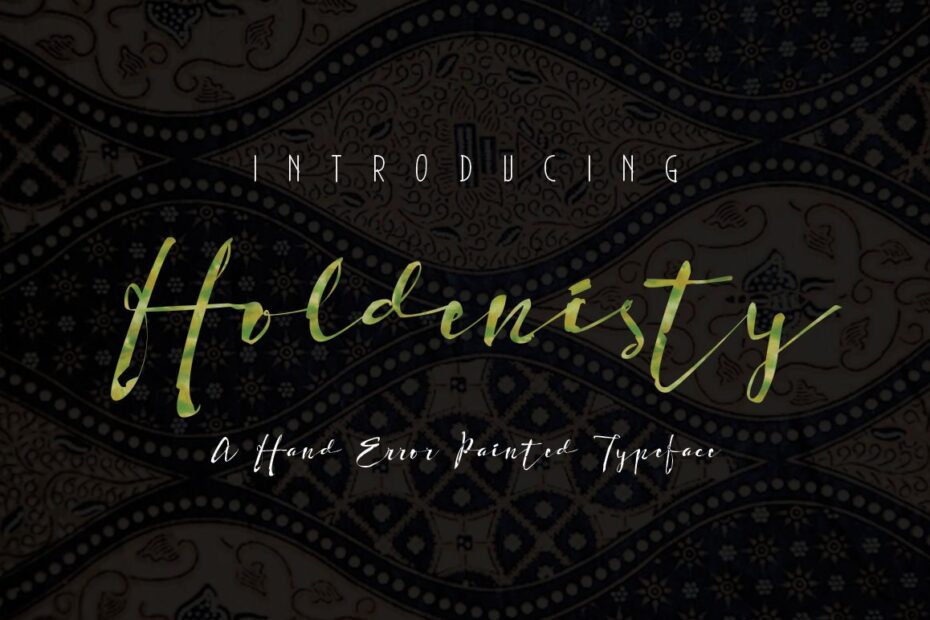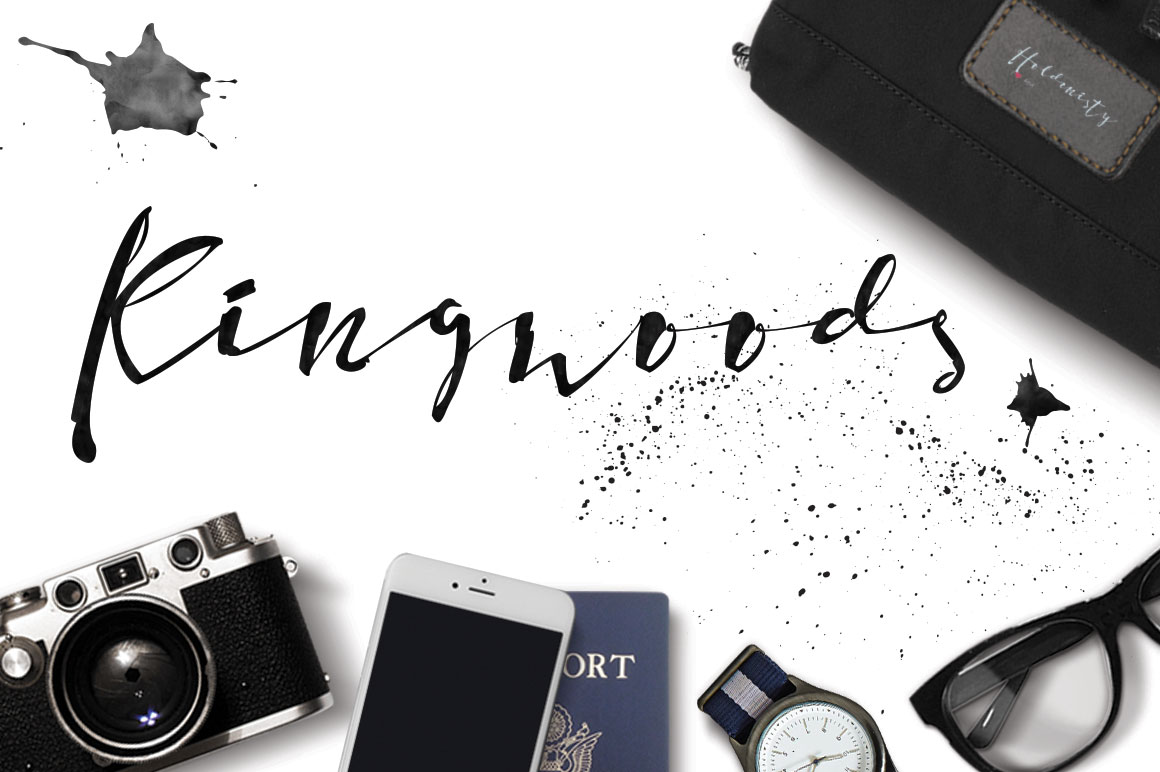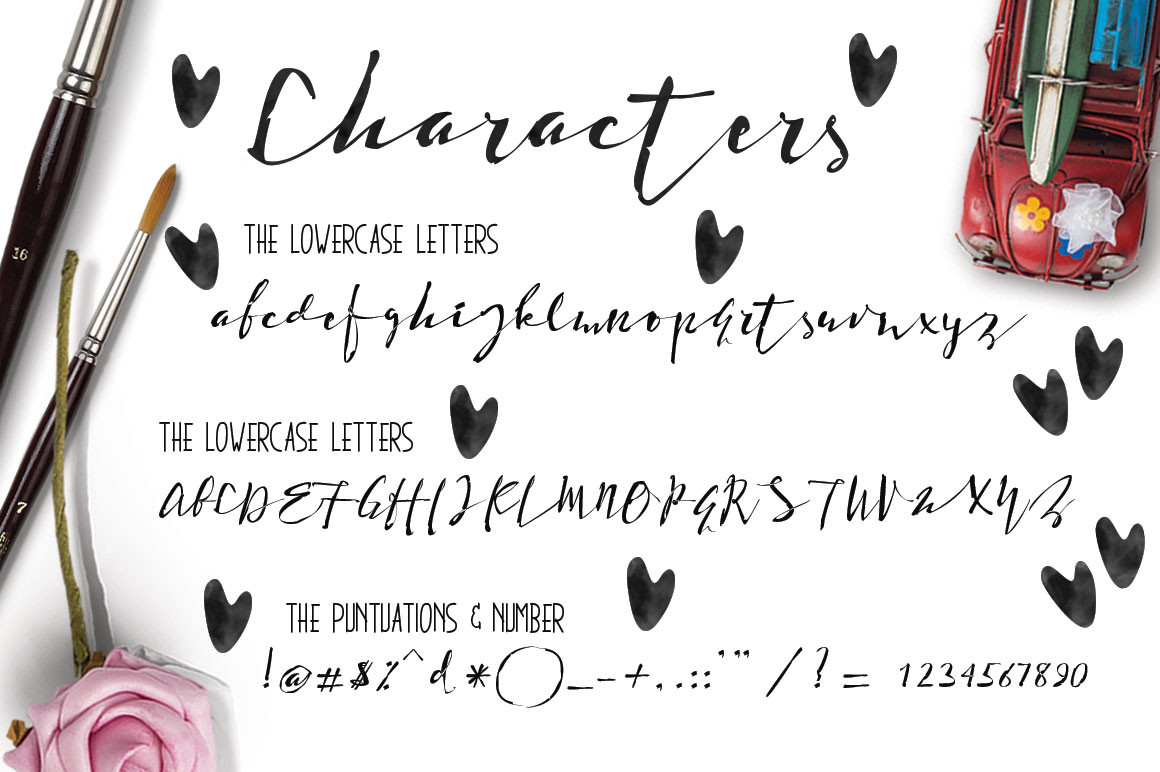
The Perfect Imperfection: Unleashing the Power of Holdenisty Font
Have you ever been stuck in a creative rut, struggling to find the perfect font to match your vision? I know I have. It was on one of those frustrating days that I stumbled upon the Holdenisty Font, and everything changed. Its unique, handwritten script with a rough feel immediately spoke to me.
Holdenisty Font is more than just a font – it’s a way to add character and personality to your designs. Whether you’re a graphic designer, artist, or simply someone who loves typography, this font is a game-changer. Its imperfect, handwritten feel adds a touch of warmth and authenticity to any project, making it a valuable tool for designers looking to create something truly unique.
Holdenisty Font Key Features
- Unique Characteristics: Distinctive, hand-drawn feel with subtle texture and imperfections, giving it a unique, human touch
Holdenisty Font Review
Overall, I think Holdenisty is a decent font with a unique personality. The quirky charm ✨ that it brings to a design is undeniable, especially when used in the right context. I appreciate the variety of weights ✨ available, making it versatile for different design projects.
However, I do have some reservations about Holdenisty. The legibility can be a concern ⚠️, especially at smaller font sizes. In certain situations, the letters can appear a bit cluttered ⚠️, which may impact readability. Additionally, I think the font could benefit from a more comprehensive character set ⚠️, as some special characters and symbols are not well-represented.
- Unique and quirky charm ✨
- Variety of weights ✨
- Well-suited for creative projects ✨
- Legibility can be a concern ⚠️
- Letters can appear cluttered at smaller sizes ⚠️
- Limited character set ⚠️
Overall, I think Holdenisty is a solid choice for designers who want to add some personality to their work. Just be mindful of the limitations and use it judiciously. With some careful selection and styling, Holdenisty can be a valuable addition to your design toolkit.
Holdenisty Font is perfect for:
- Designing vintage-inspired graphics and logos.
- Creating retro-style posters
Alternatives to Holdenisty Font for Designers
Great Vibes is a modern, elegant script font that is ideal for creating a relaxed and friendly atmosphere in designs. It’s perfect for use in titles, headings, and quotes, where a touch of sophistication is needed. Compared to Holdenisty Font, Great Vibes has a more refined and polished look, making it suitable for a wider range of design applications.
Alex Brush is a beautiful, handwritten font that is perfect for adding a personal touch to designs. It’s ideal for use in invitations, greeting cards, and other creative projects where a unique and artistic feel is required. Compared to Holdenisty Font, Alex Brush has a more organic and expressive look, making it suitable for projects that require a lot of character and personality.
Carolyna Pro is a elegant, modern script font that is perfect for creating a luxurious and sophisticated atmosphere in designs. It’s ideal for use in titles, headings, and quotes, where a touch of glamour and sophistication is needed. Compared to Holdenisty Font, Carolyna Pro has a more refined and polished look, making it suitable for high-end design applications.
Ostrich Sans is a modern, sans-serif font that is perfect for creating a clean and minimalist atmosphere in designs. It’s ideal for use in titles, headings, and body text, where a clear and concise message is required. Compared to Holdenisty Font, Ostrich Sans has a more modern and edgy look, making it suitable for a wide range of design applications, from fashion to technology.